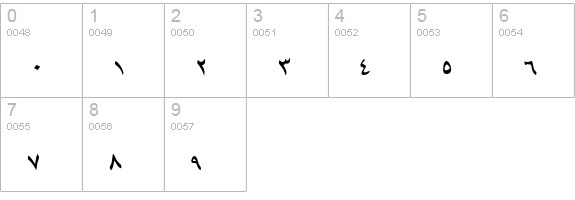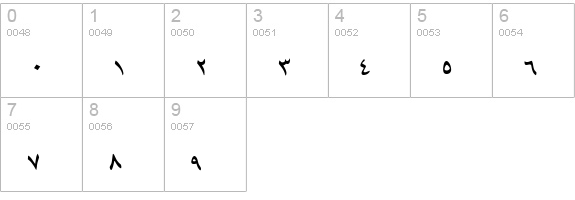
B Mashhad Italic Font Details
B Mashhad Italic is a distinctive, italic variant in the B typeface family \xE2\x80\x94 well suited to design and typography projects.
B Mashhad Italic is a stunning and elegant font that exudes sophistication and style. With its sleek lines and graceful curves, this font is perfect for adding a touch of class to any design project. The italicized style adds a sense of movement and flair, making it ideal for headings, quotes, and other standout text. The best part? B Mashhad Italic is completely free to download at FontsMarket.com! Whether you're working on a personal project or a professional design, this font is a fantastic choice that won't break the bank. Don't miss out on the opportunity to elevate your designs with this beautiful and versatile typeface. Download B Mashhad Italic today and take your creations to the next level.